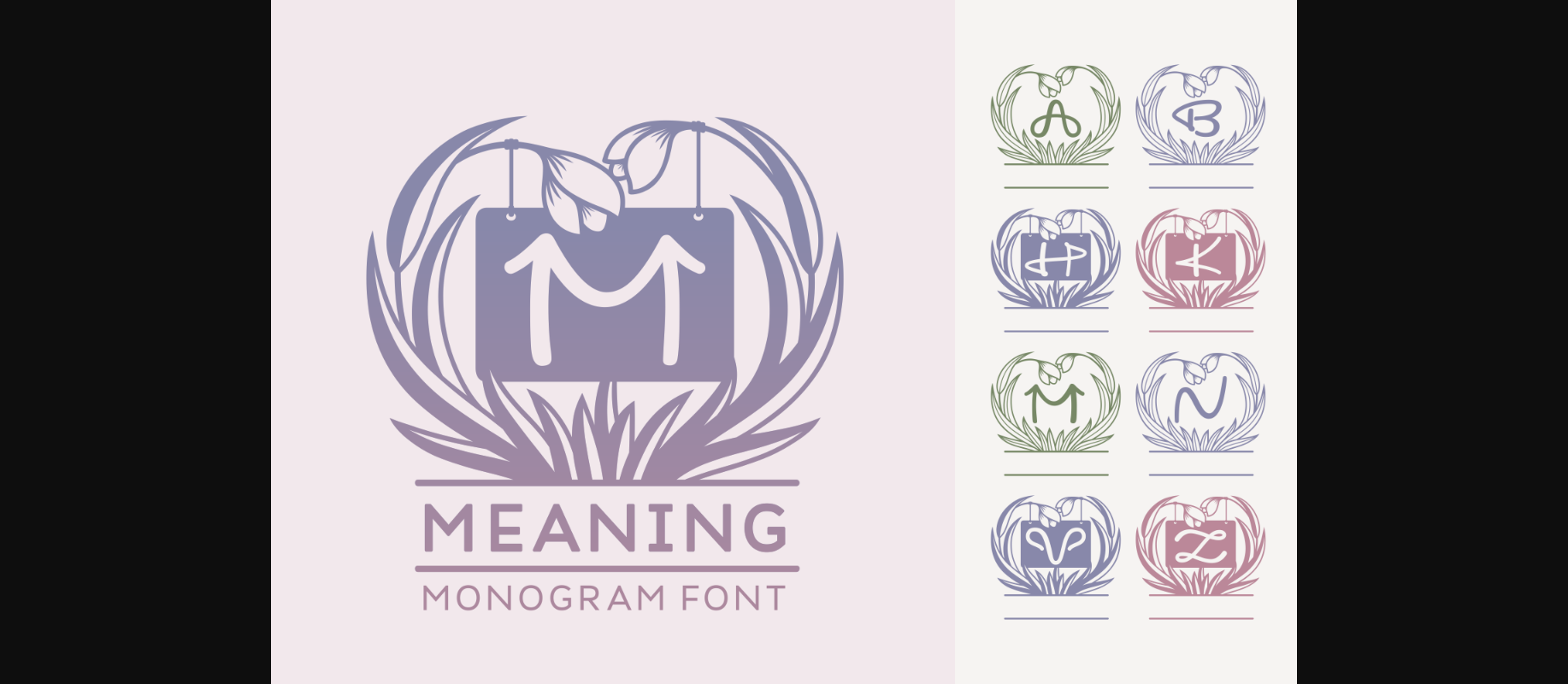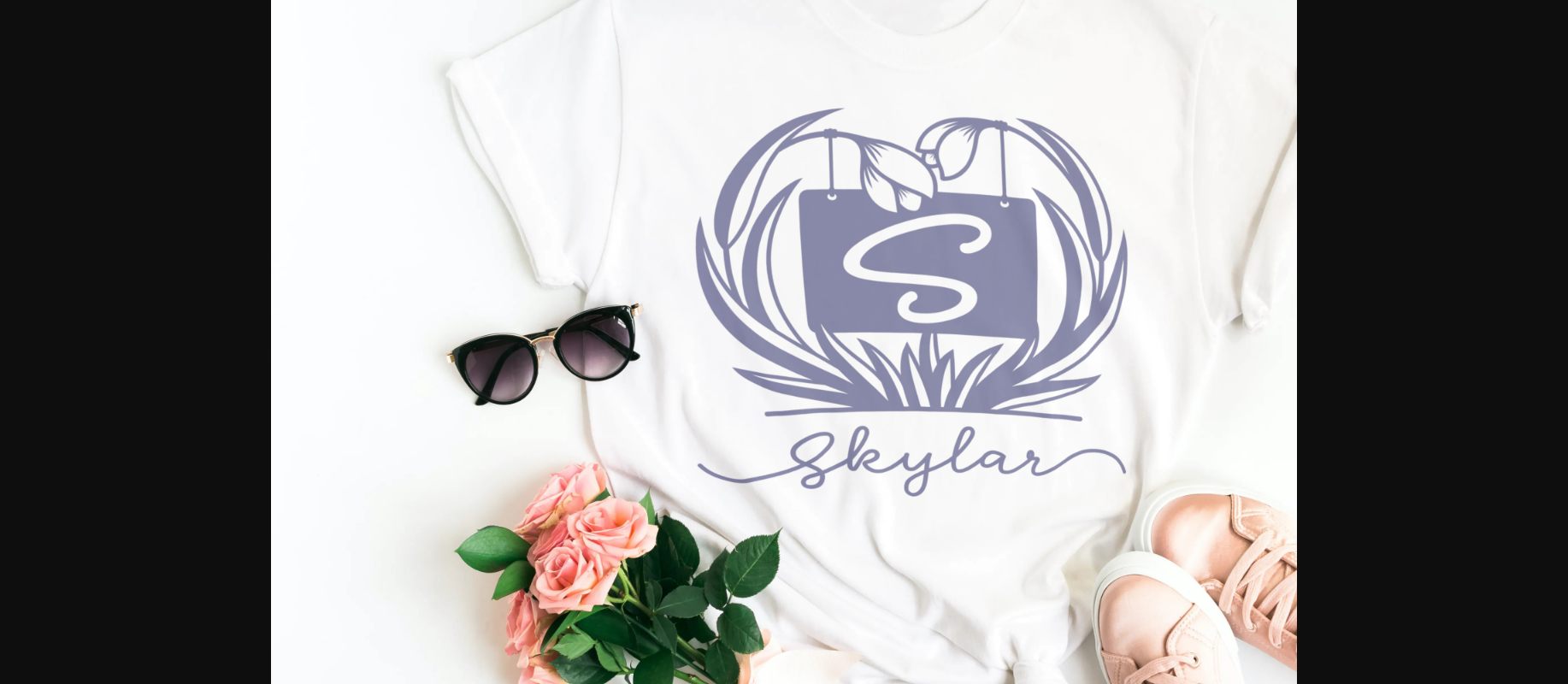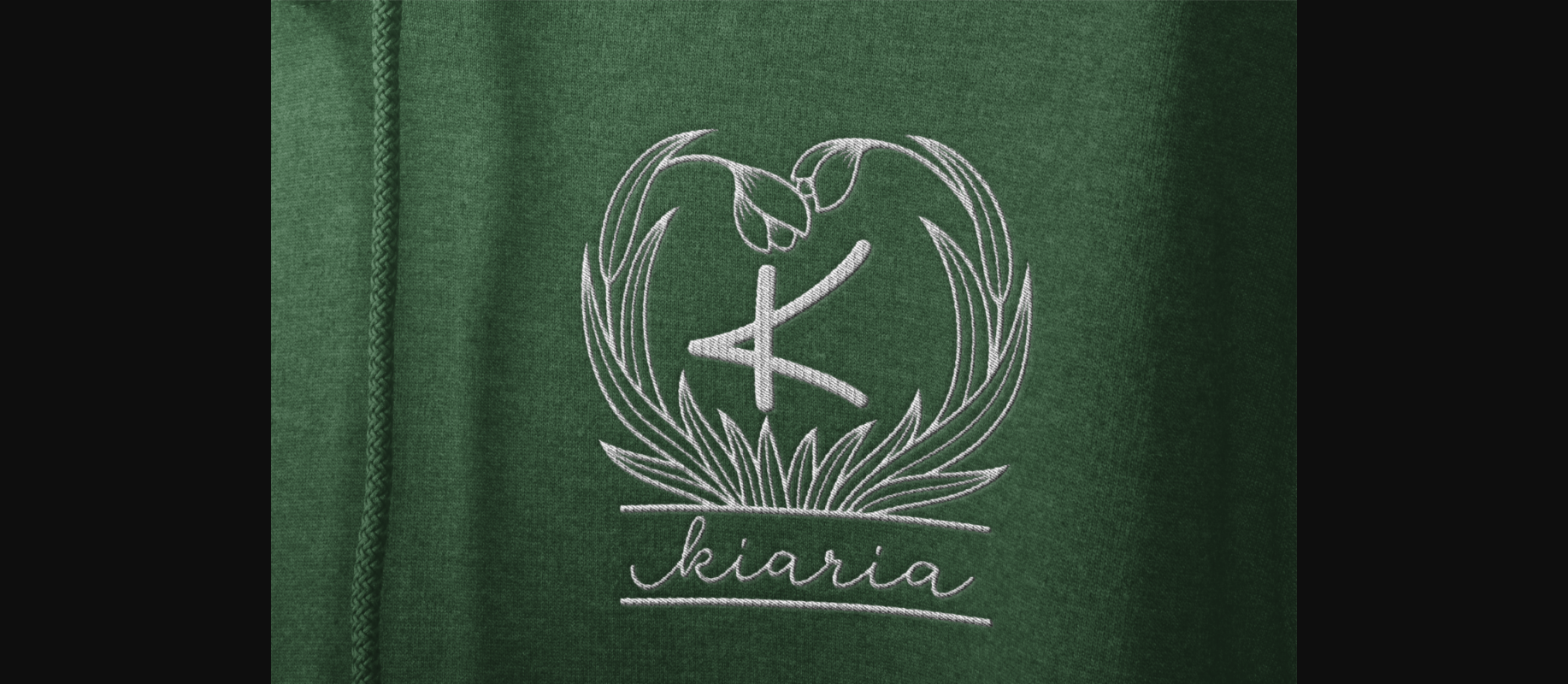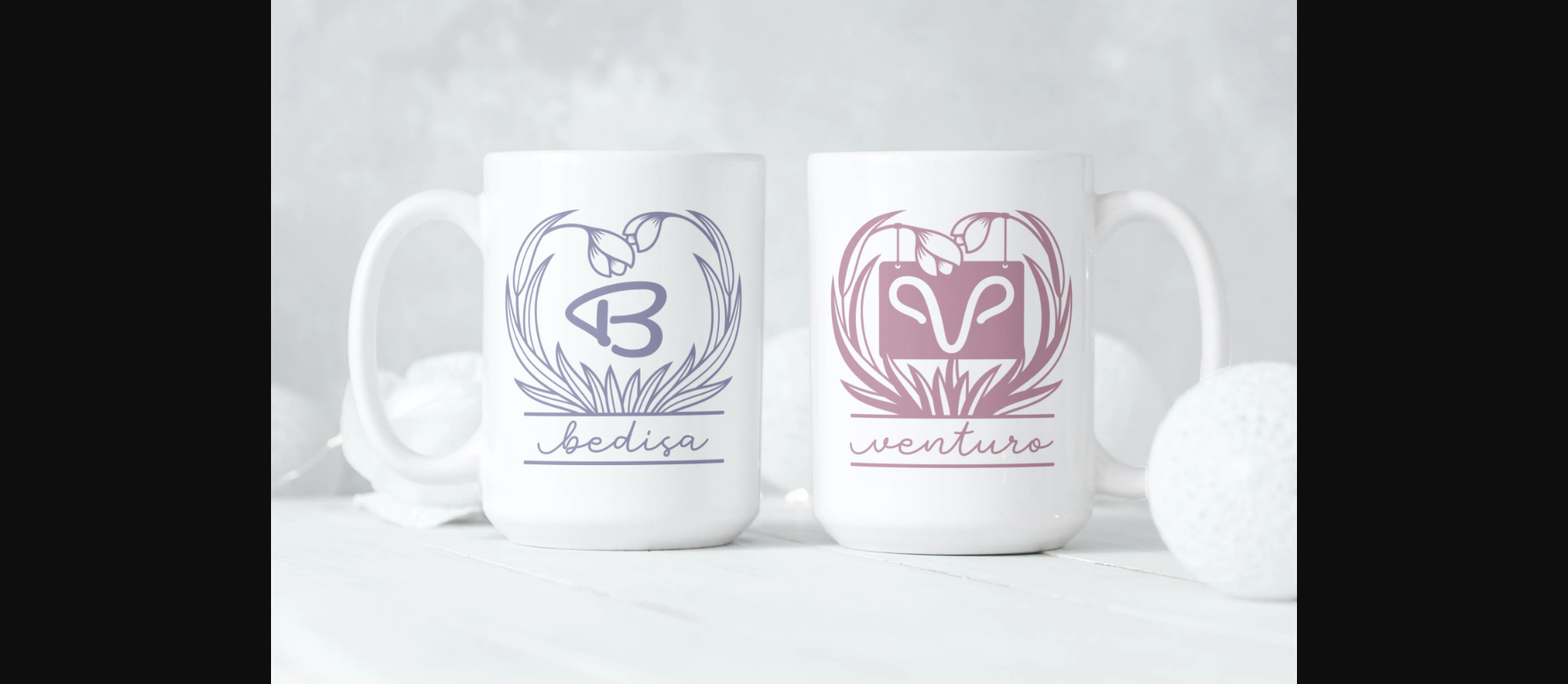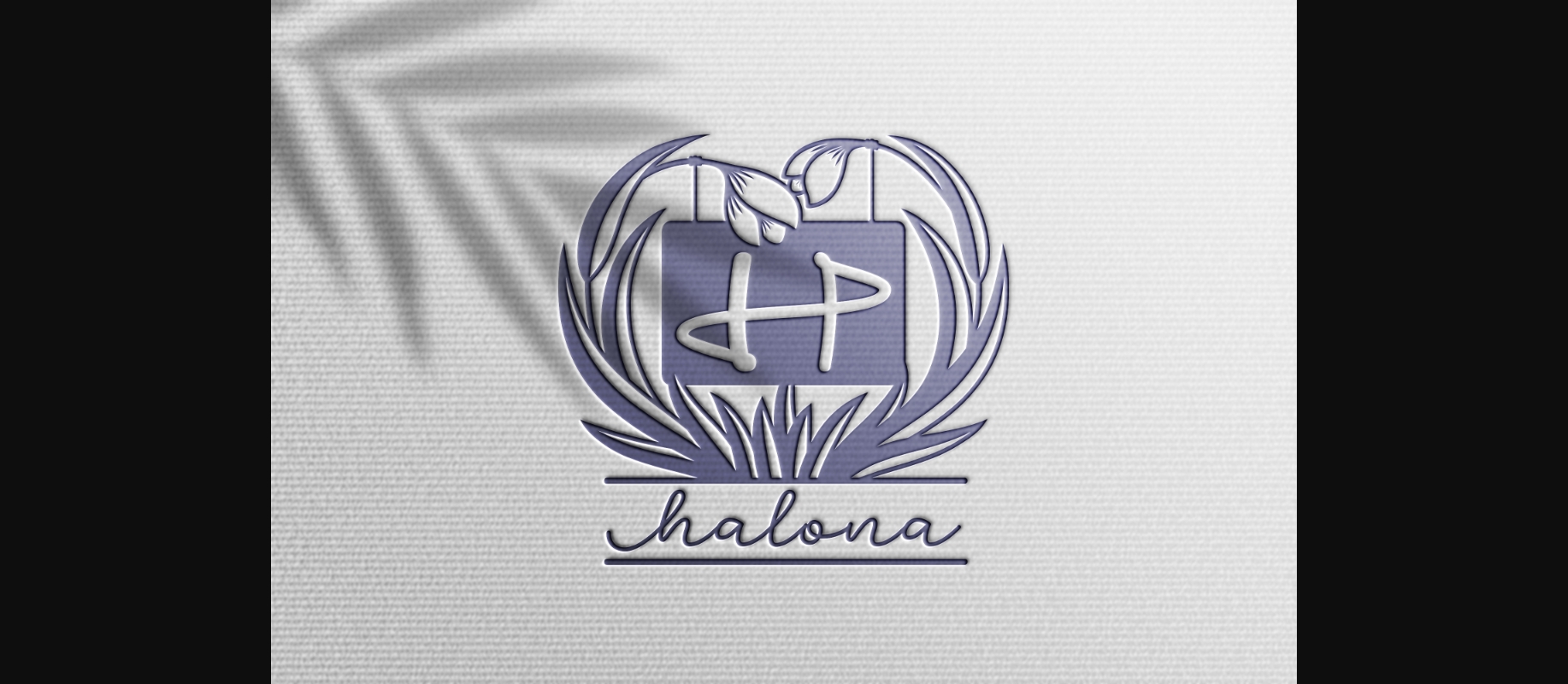
About Meaning Font
Meaning is a genuine and interesting decorative font. It has beautiful and well balanced characters and as a result, it matches a wide pool of designs. Have fun with this beautiful font and explore its endless variations.